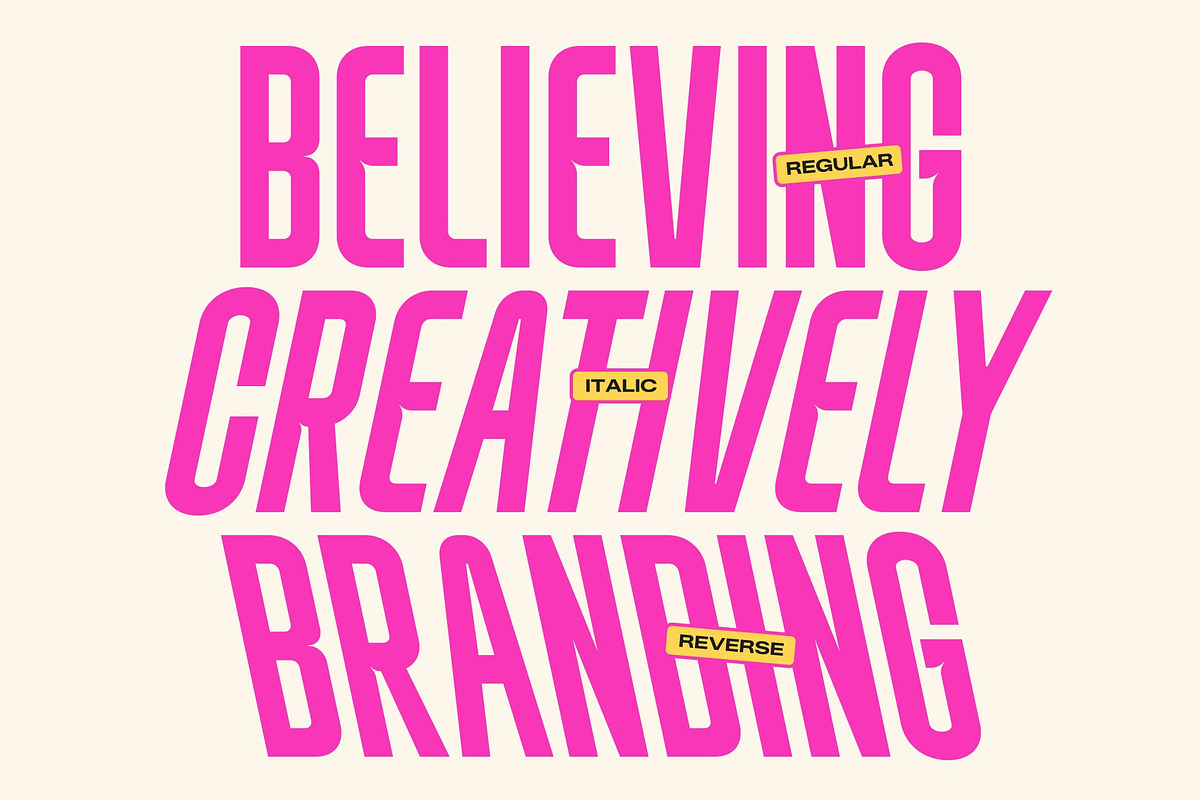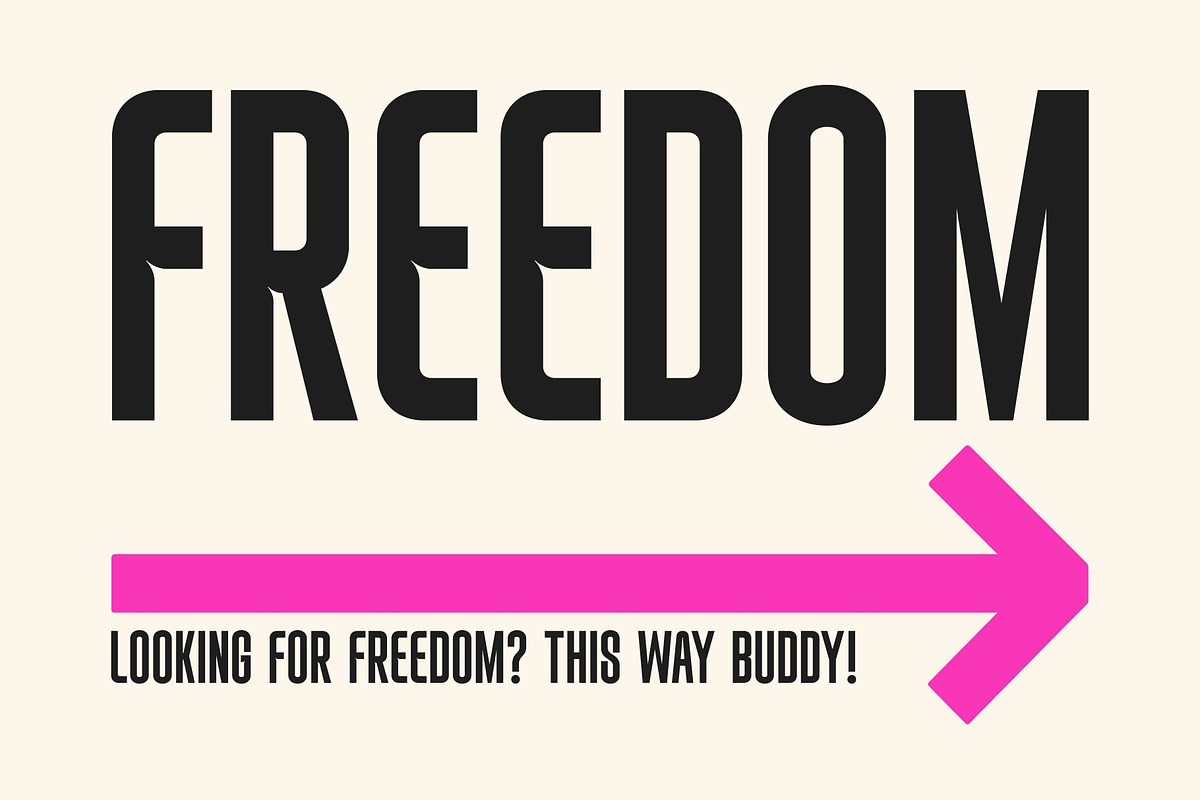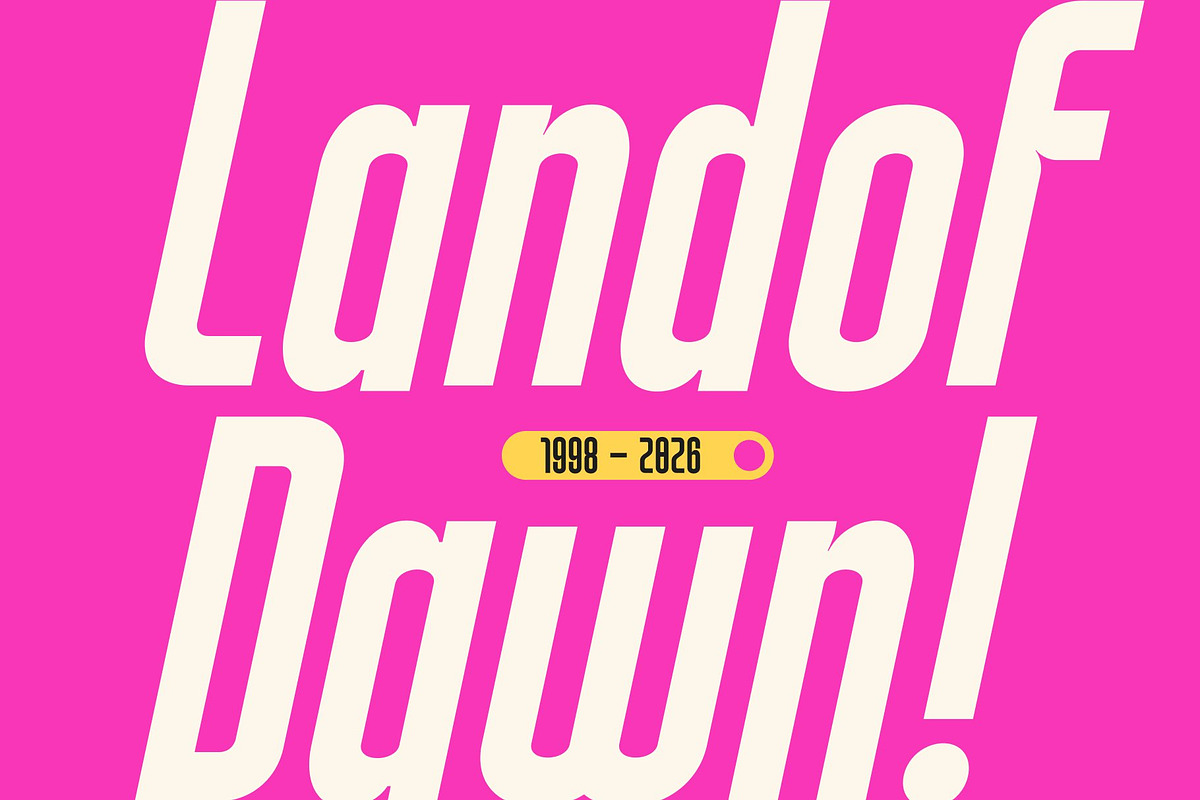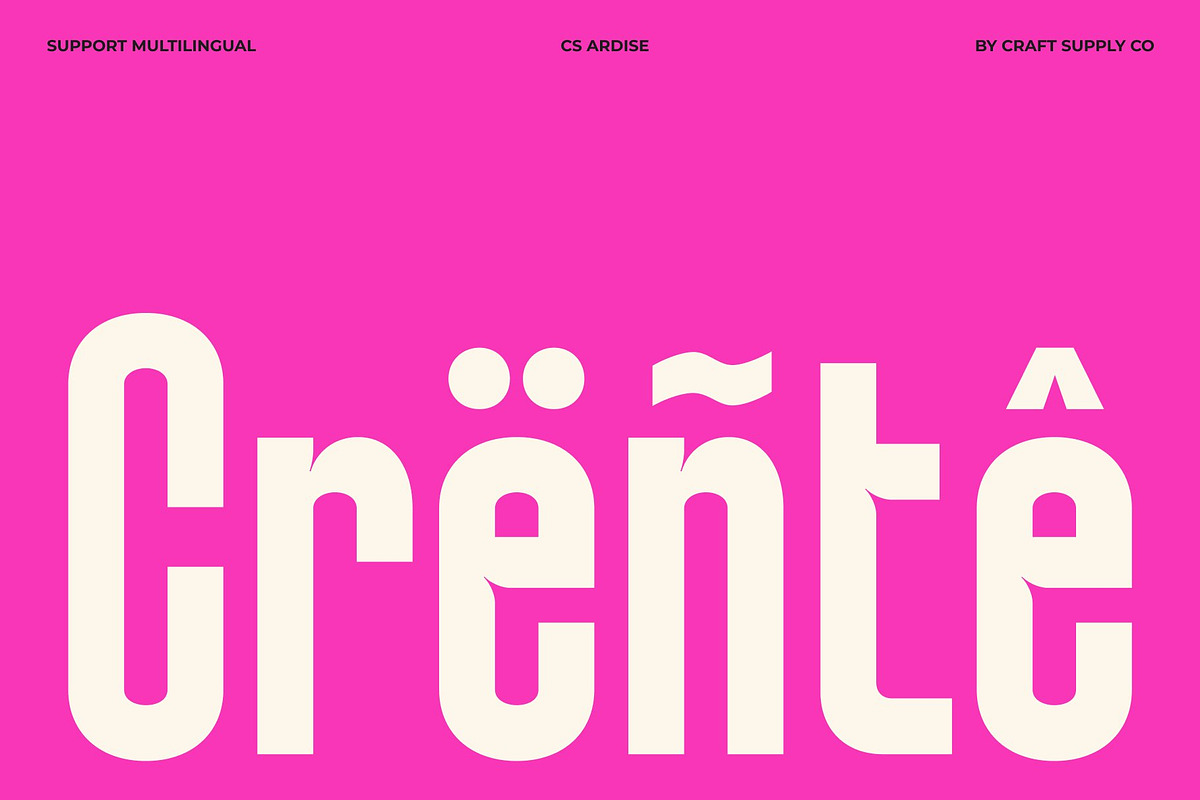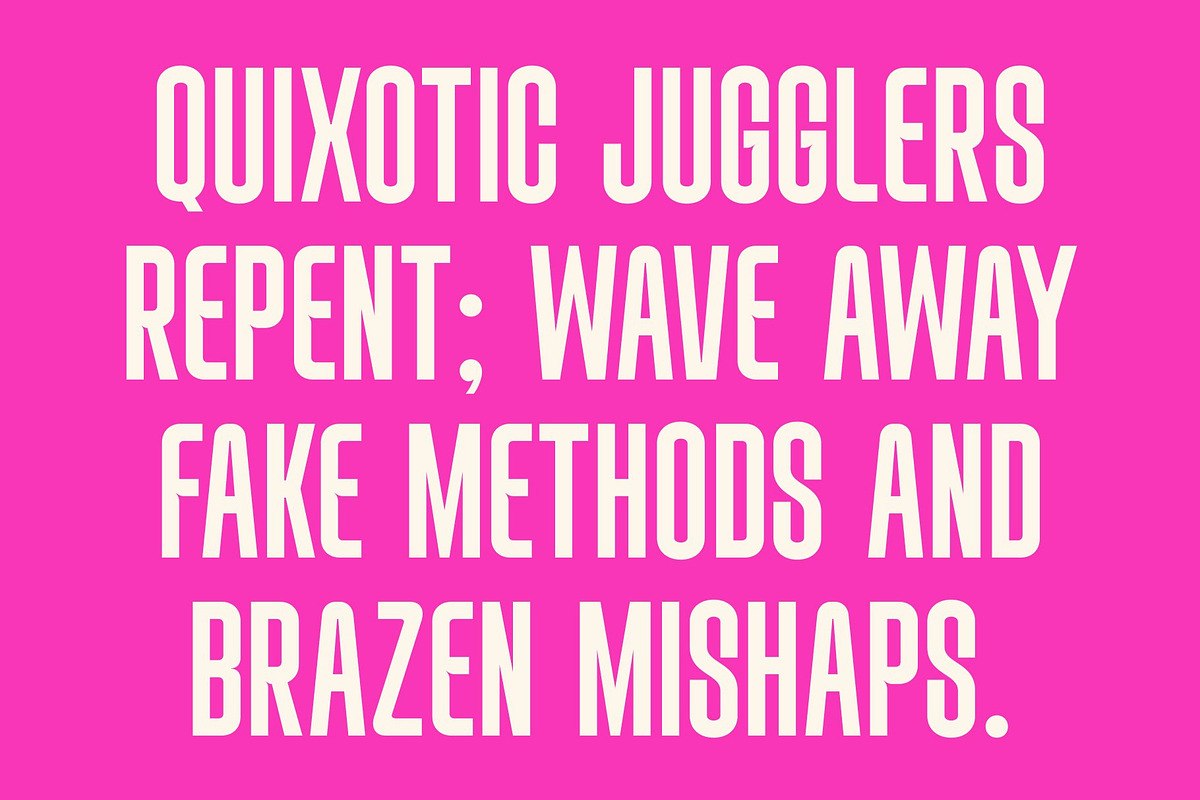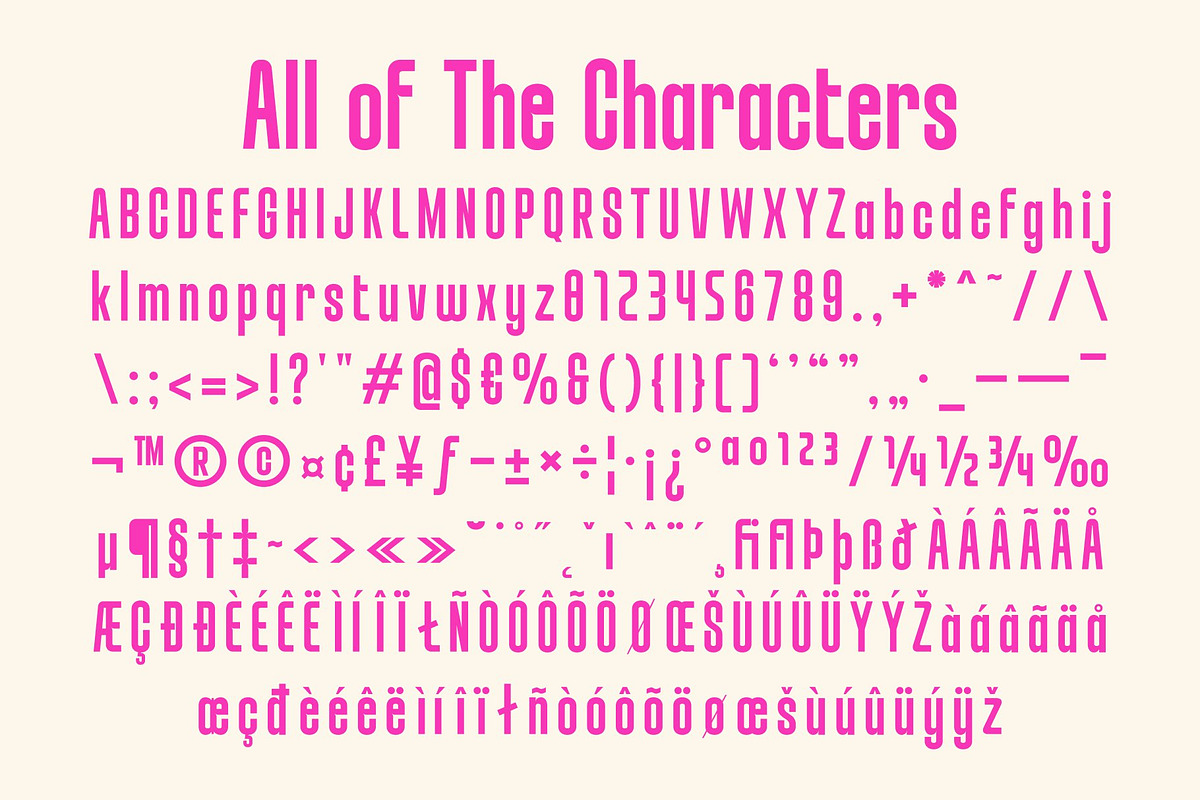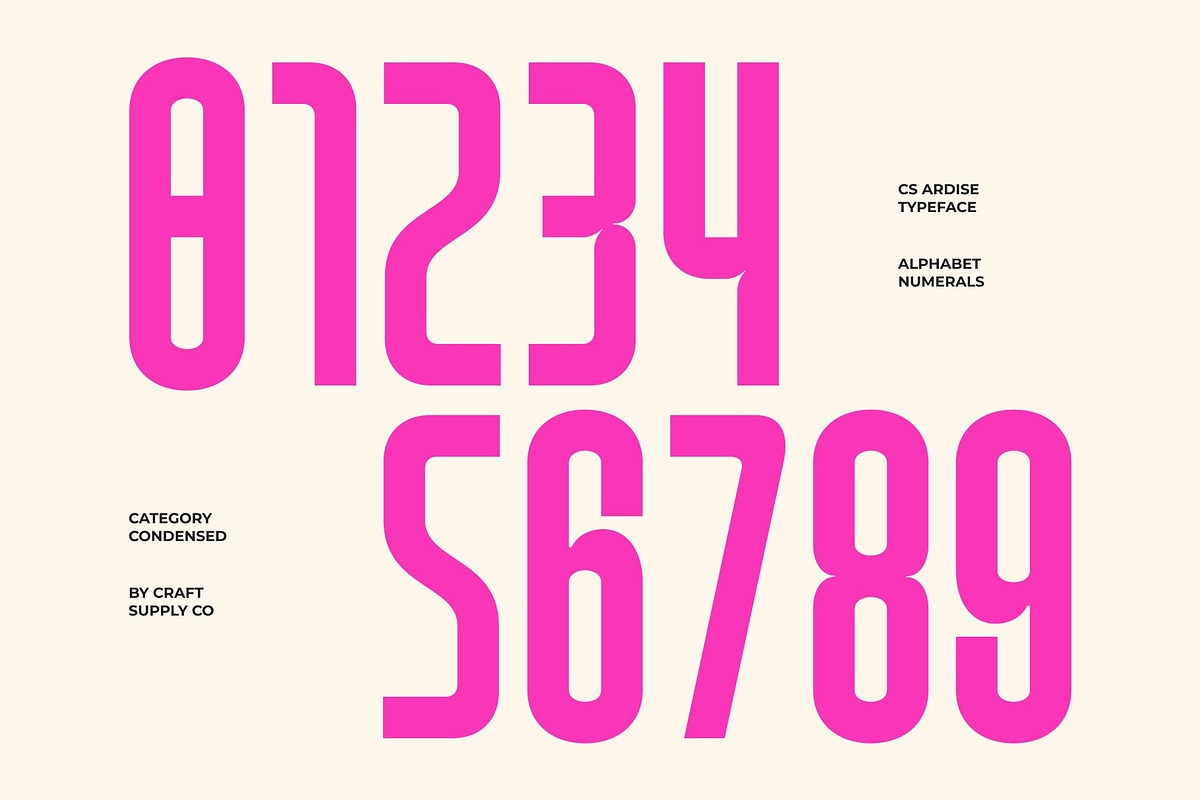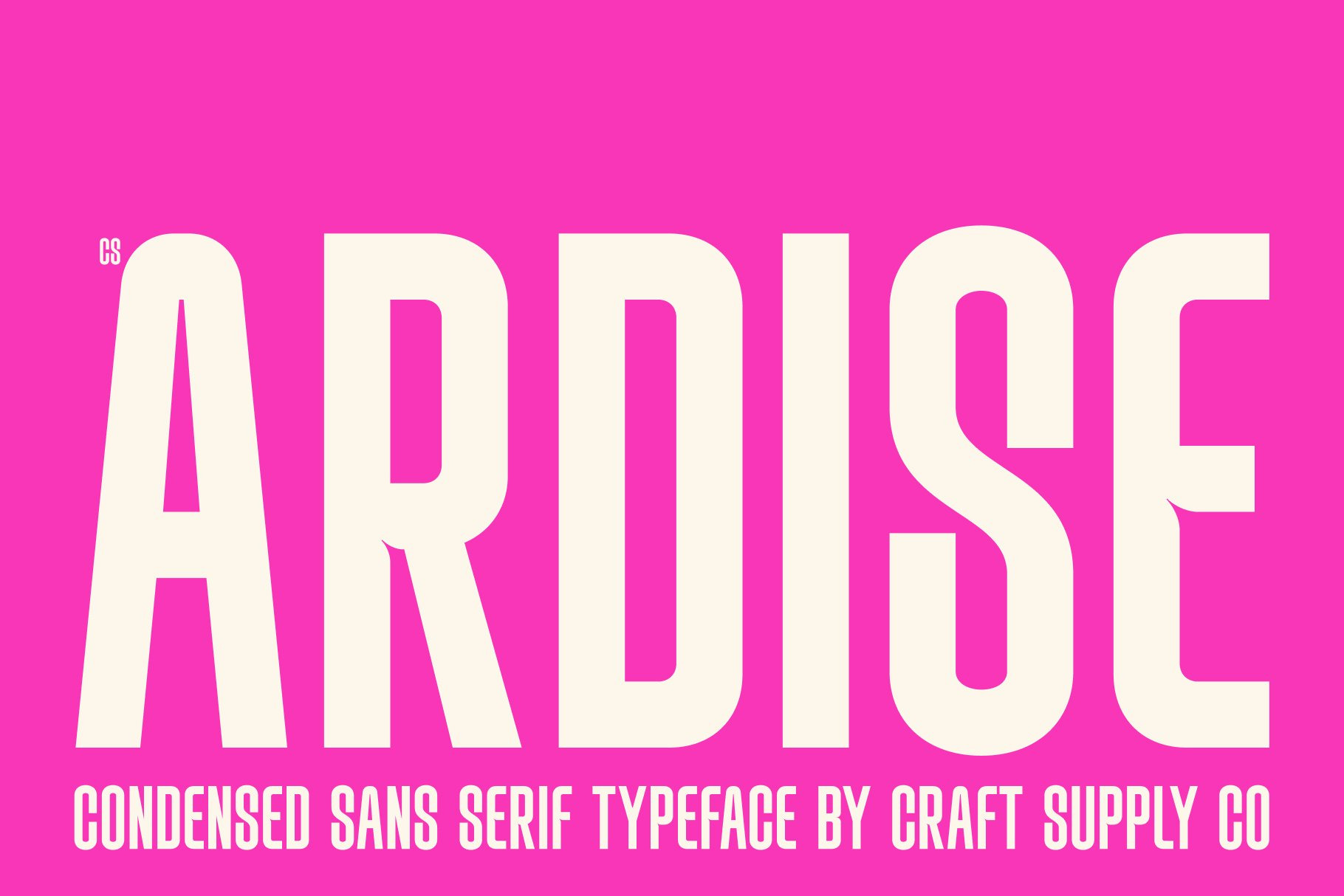
CS Ardise – Condensed Font
CS Ardise – Condensed Sans Serif with Industrial Impact
Condensed Sans Serif for Strong Visual Efficiency This is a modern condensed sans serif font designed to deliver powerful impact in tight spaces. With its streamlined proportions and confident structure, this typeface transforms headlines into bold and commanding visual statements. It is crafted for designers who need typography that feels strong, efficient, and unmistakably contemporary.
Built for Tight Layouts and Maximum Clarity The condensed construction allows more content to fit seamlessly into narrow compositions without sacrificing readability. Each letterform is carefully refined to appear tall, balanced, and highly legible, ensuring your message remains clear even in dense layouts. This makes this font an ideal choice for posters, banners, and attention-grabbing titles.
Industrial Details with Modern Precision This font incorporates subtle industrial-inspired details that add strength and character to its clean structure. The sturdy strokes and precise geometry create a confident and professional tone while maintaining a fresh and modern aesthetic. This balance gives the typeface a bold yet versatile personality.
Perfect for Headlines, Posters, and Branding From editorial headlines and advertising campaigns to branding and digital design, this font provides a reliable and contemporary typographic solution. Its combination of readability, compact efficiency, and industrial character ensures your typography stands out with clarity, strength, and modern appeal.
CS Ardise Regular
CS Ardise Italic
CS Ardise Reverse Italic